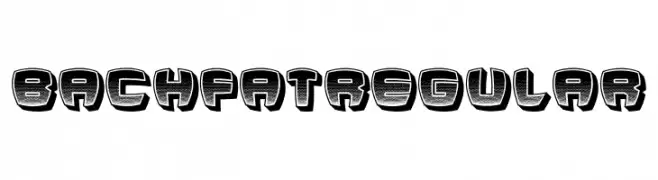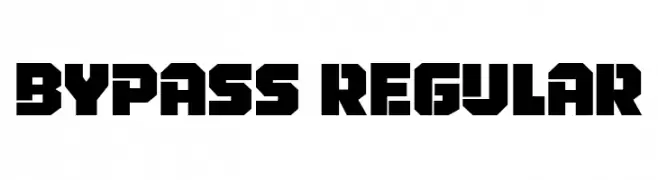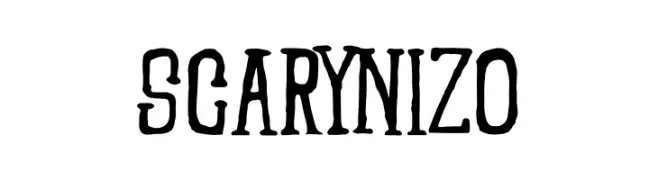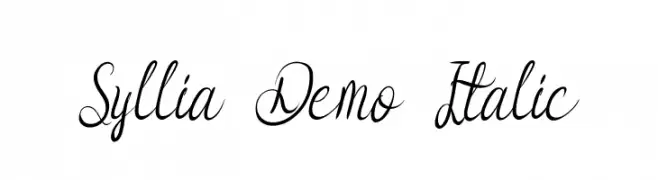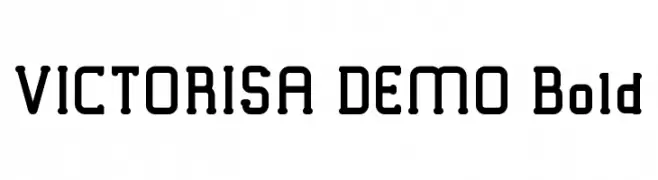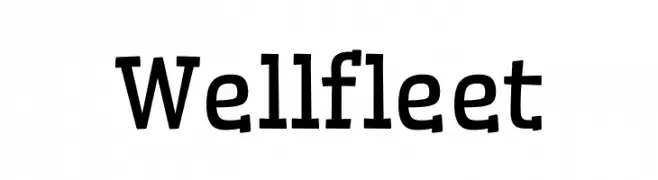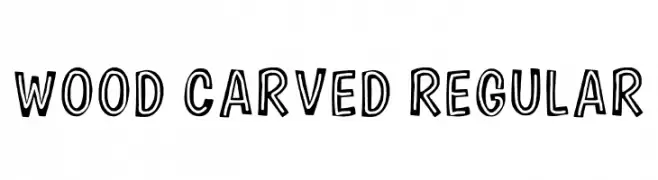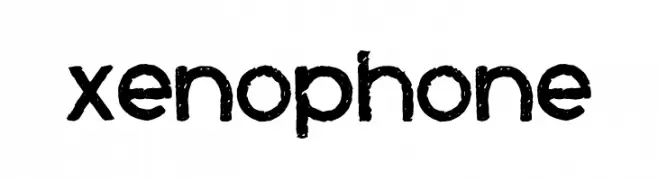
A bold, hand-drawn font with a vintage, rustic style.
A bold, playful typeface with a slightly condensed and whimsical design.
A bold, italic font with sharp, angular edges and a dynamic, forward-leaning style.
A bold slab serif font with strong, pronounced serifs and a classic style.
A bold, geometric font with an industrial and modern style.
A bold, three-dimensional font with a retro, blocky style and shadow effects.
A bold, textured font with a rustic, hand-crafted appearance.
A bold, playful font with a hand-carved, outlined style.
An elegant, flowing script font with ornate, interconnected letters.
A bold, modern font with rounded edges and consistent stroke width.